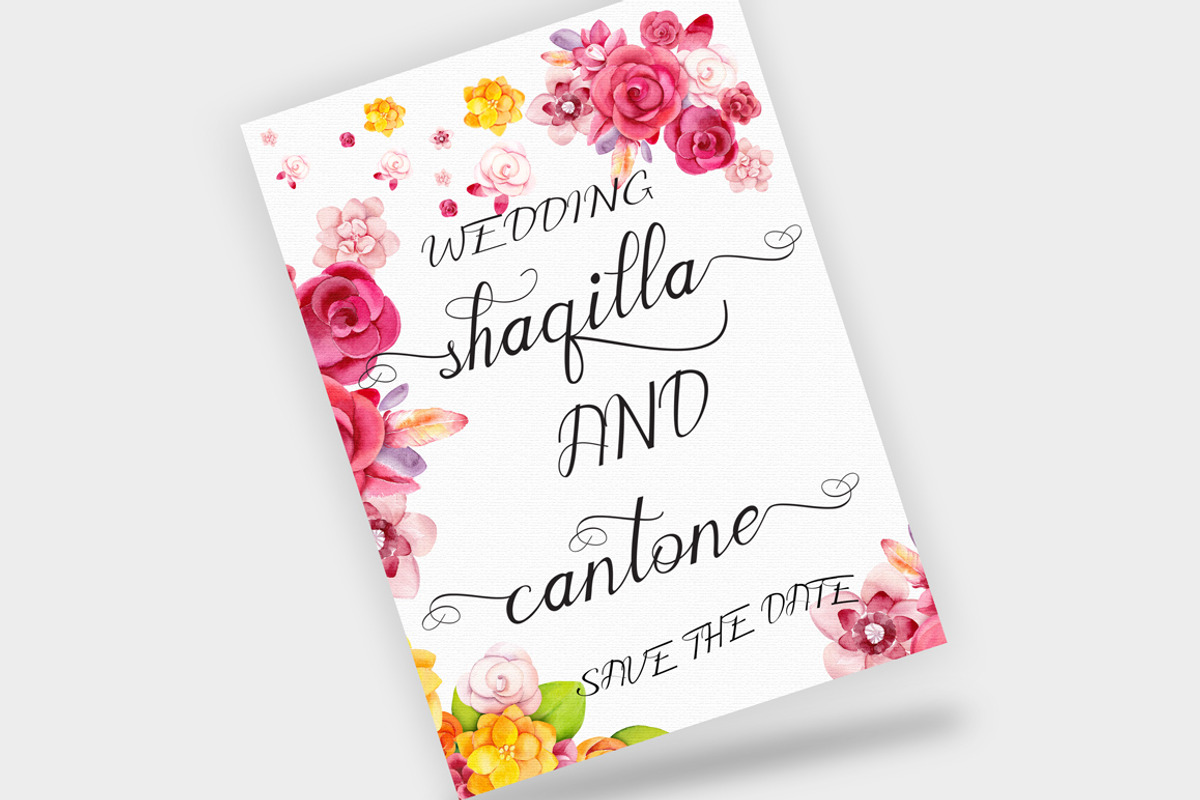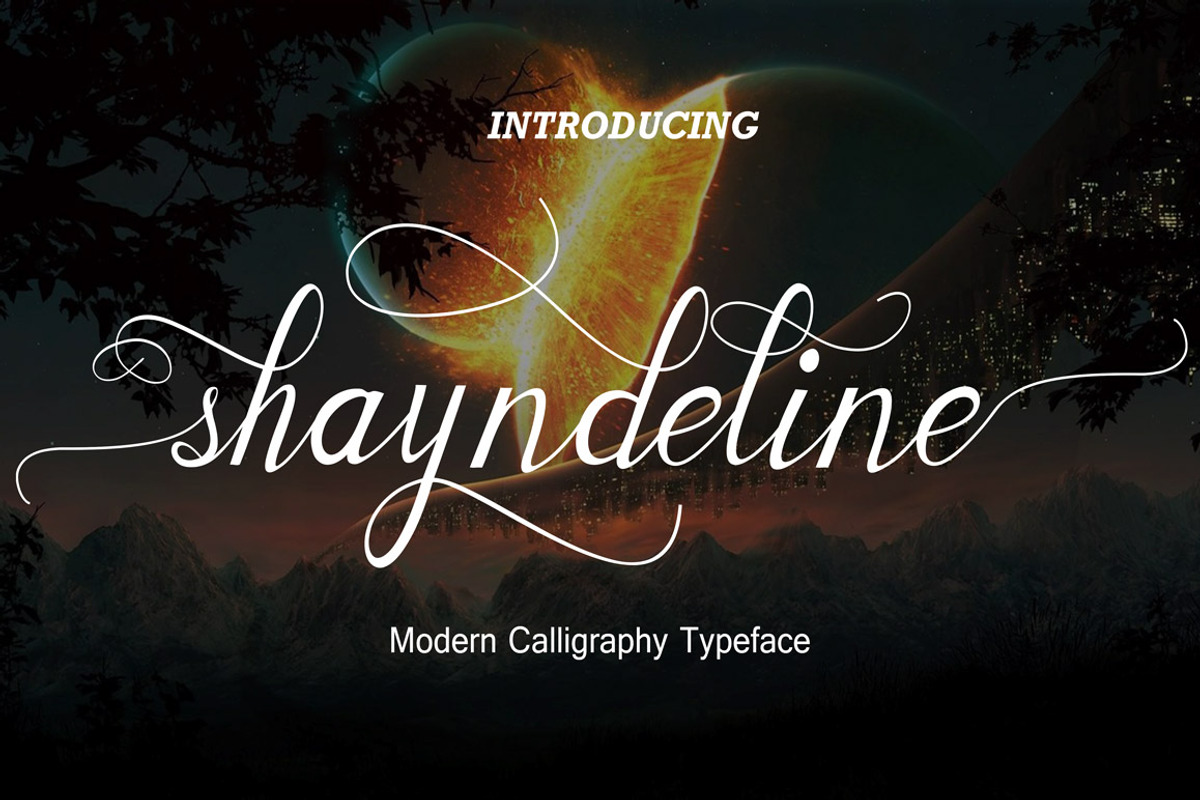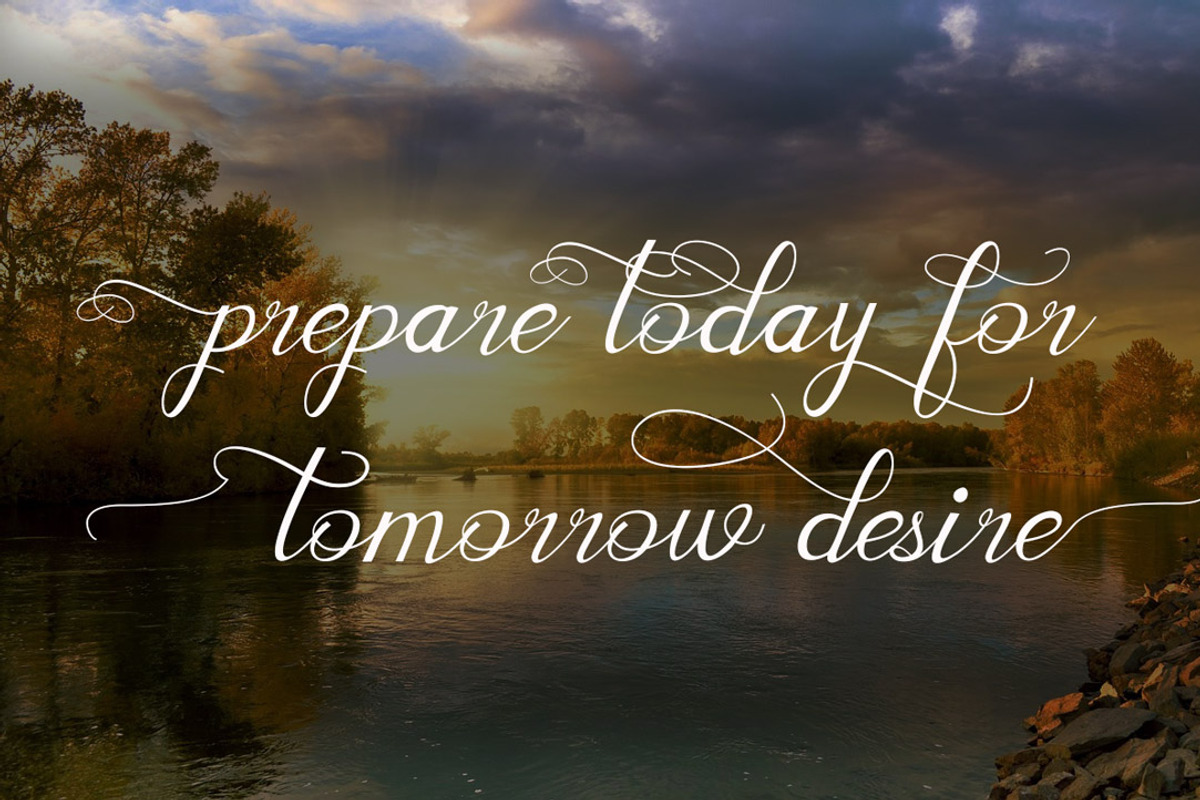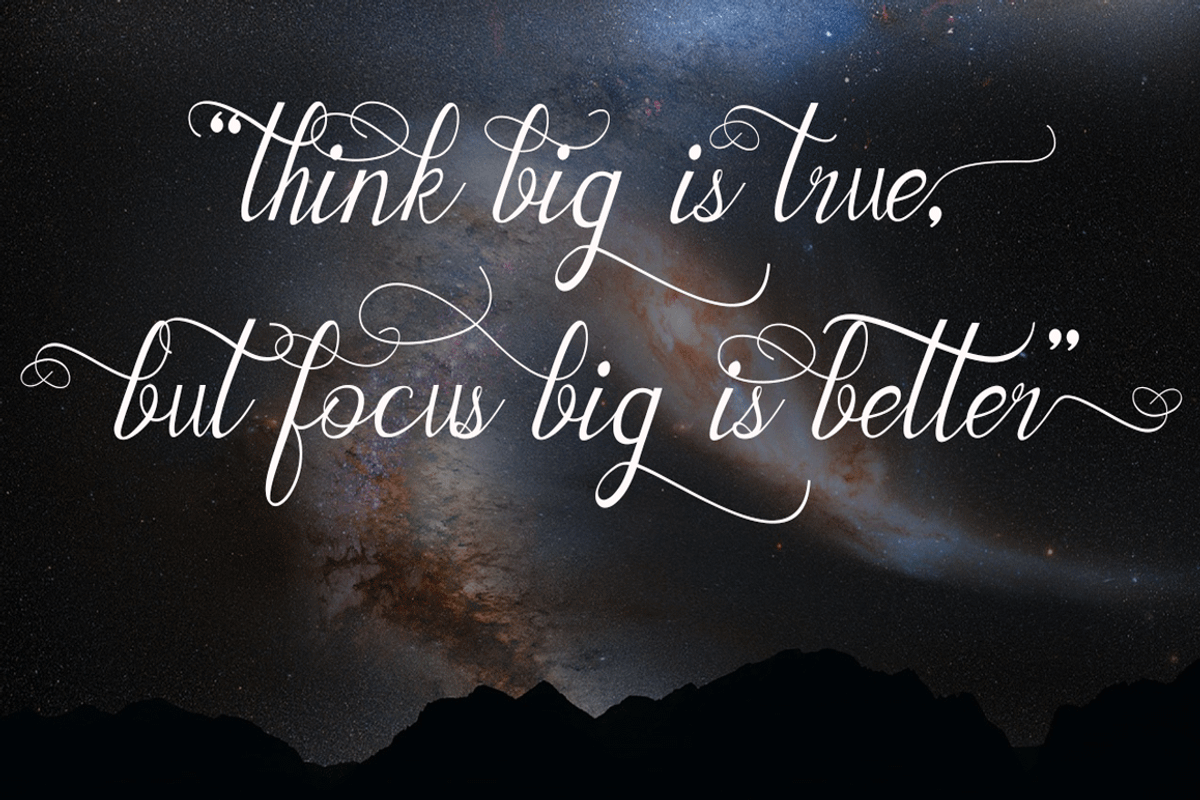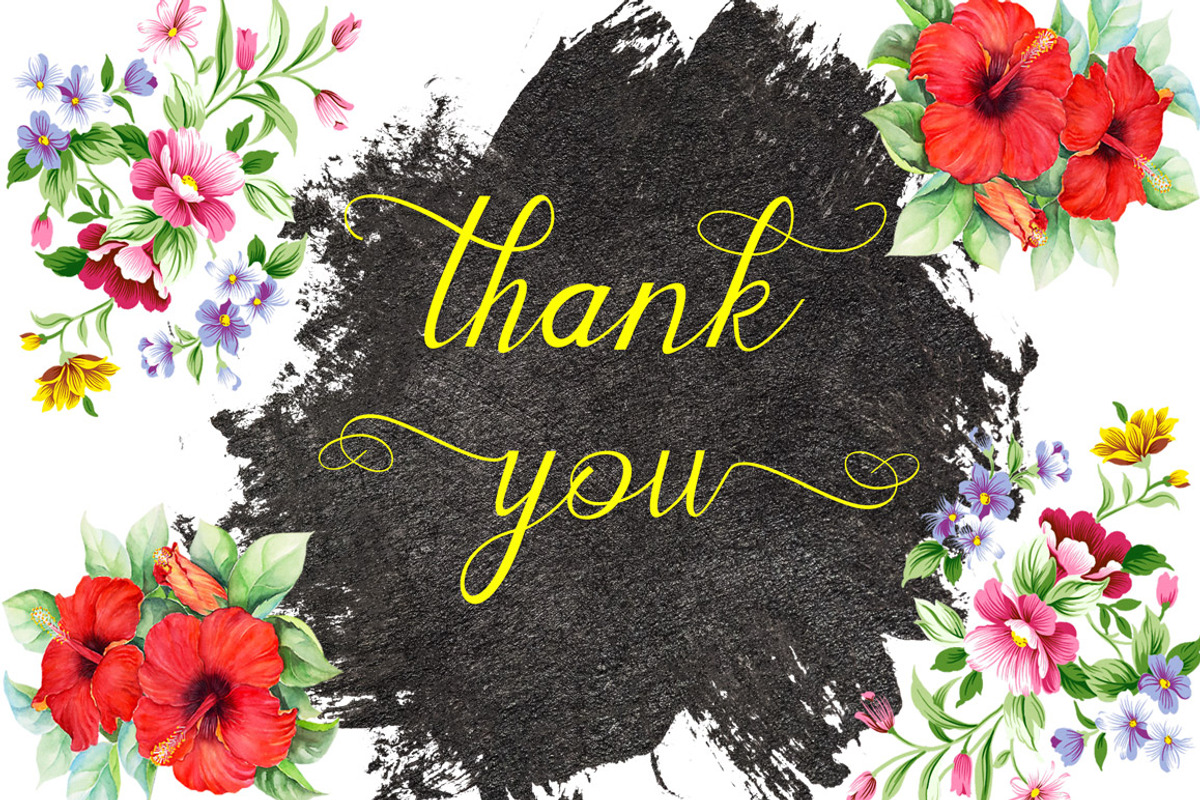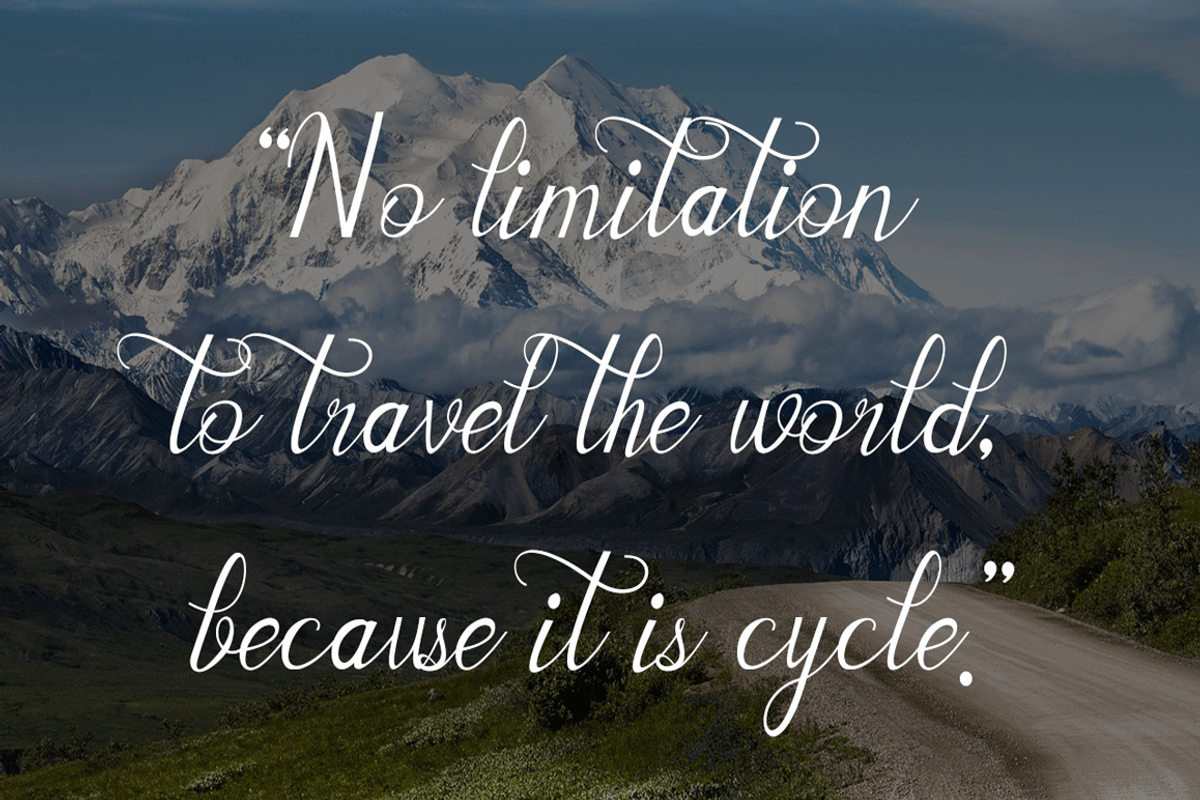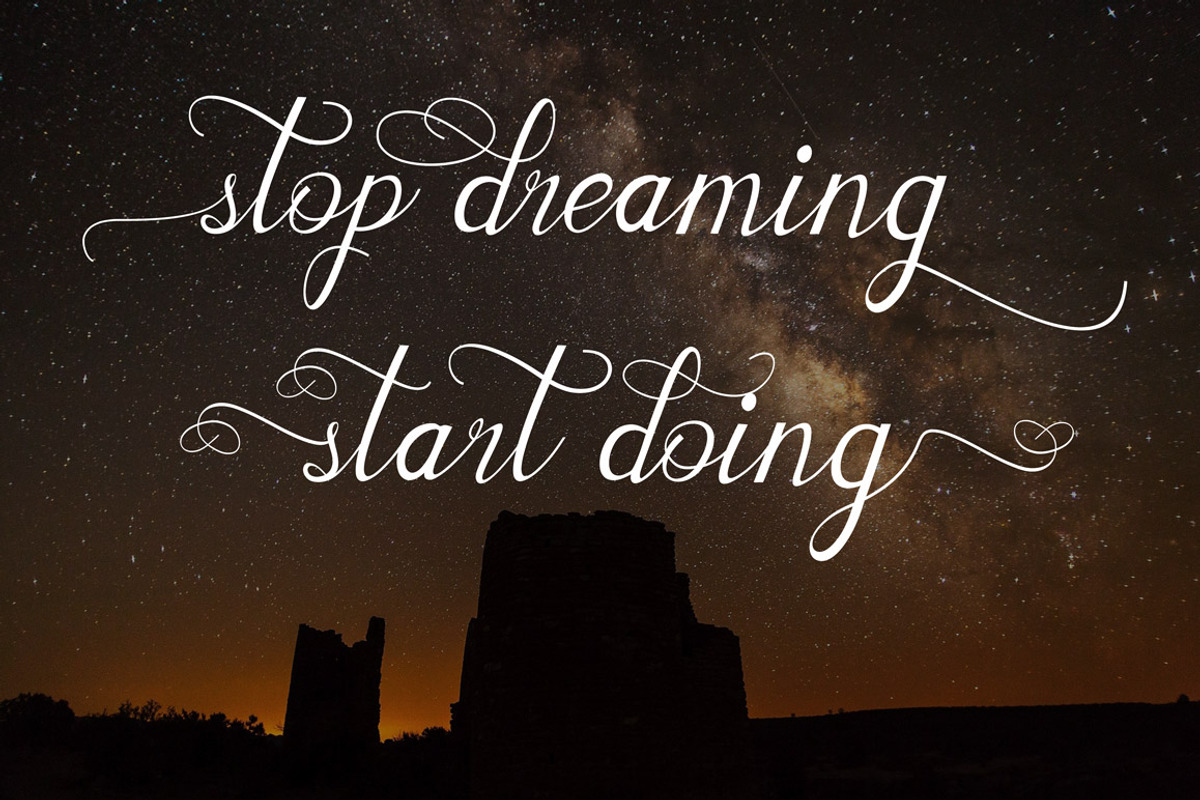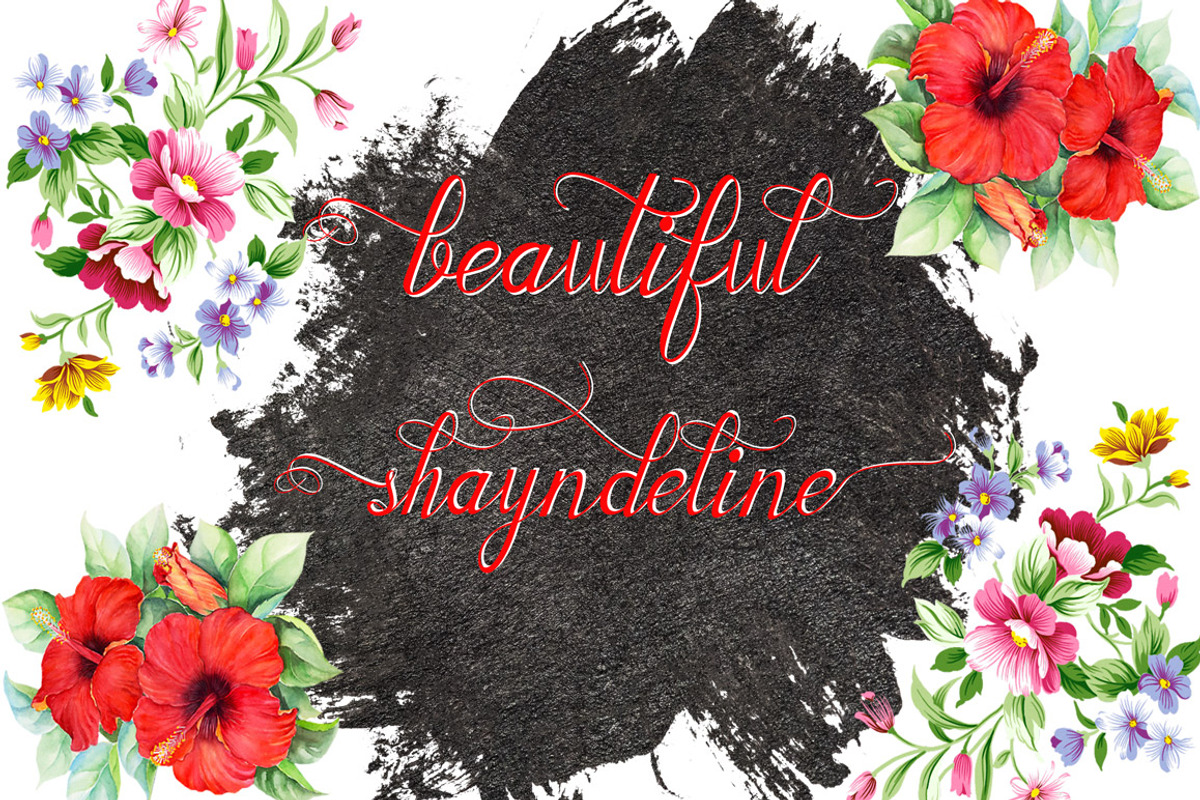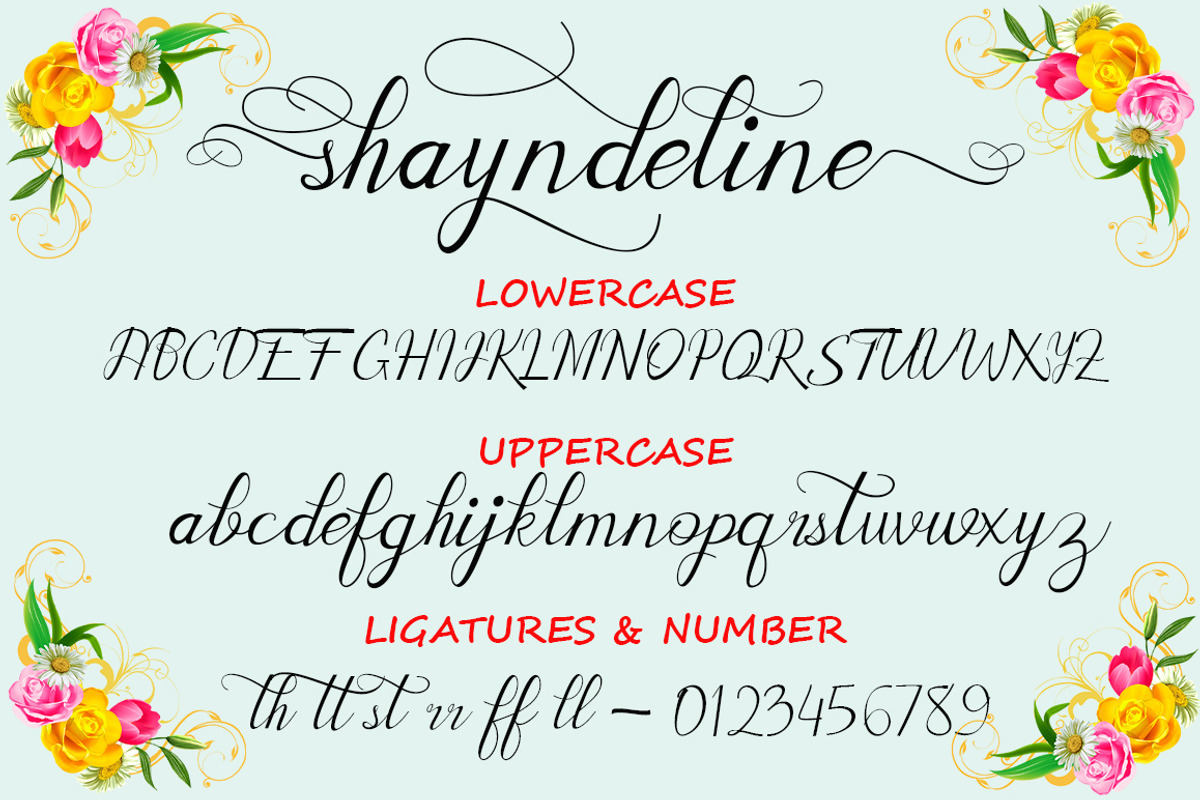
Shayndeline
Shayndeline scripts is a hand calligraphy, smooth, modern and classic, calligraphy wavy, which was created to meet the needs of your next design project. Shayndeline , Can used for various purposes. such as the title, signature, logo, correspondence, wedding invitations, letterhead, signage, labels, newsletters, posters, badges, etc.
Shayndeline features 353 glyphs and has given PUA unicode (specially coded fonts), can be accessed easily with the character map, can be accessed in full by the lovers of letters or artisans to increase career in the design world.
The Features of this fonts is: Standart ligatures, Stylistic Sets and swashes.
Features Basic Latin A-Z and a-z Numbers Symbols